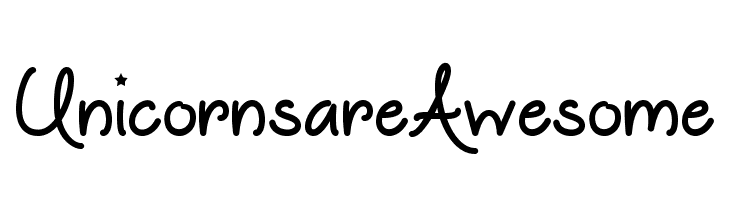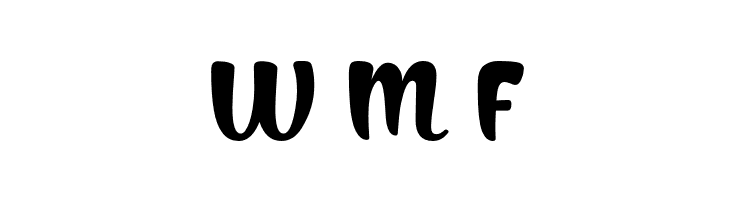
A playful, bold font with rounded edges and a whimsical style.
A bold, handwritten font with a brush-like texture and playful style.
( Fonts by Chris Vile )
A bold, distressed font with a grunge texture and rugged appearance.
An elegant calligraphy font with flowing strokes and decorative flourishes.
A playful, casual handwritten font with irregular strokes and a lively feel.
A geometric, modern font with bold, clean lines and a futuristic style.
A bold, geometric font with a futuristic and expanded style.
( Fonts by Jacob Fisher - www.pizzadude.dk )
A pixelated, retro-style font with a digital display aesthetic.